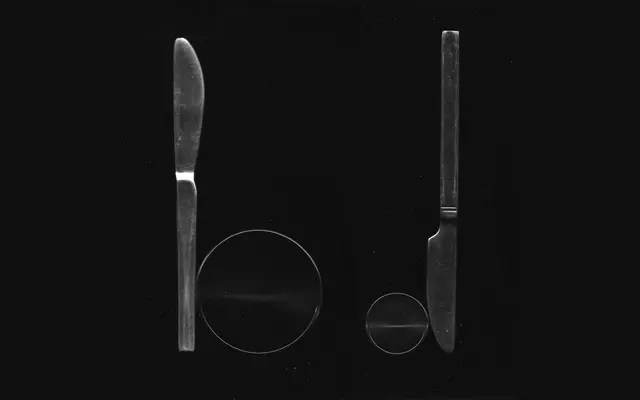
kitchenSet
Not Your Type · Hongshuang Fu · 2025
A single-style display typeface drawn from the outlines of kitchen utensils — forks, knives and glass rims — by Beijing-based designer Hongshuang Fu.
Created on a kitchen table in winter 2022 and released through Not Your Type in 2025, KitchenSet takes physical cutlery and glassware as its formal source material rather than any typographic tradition. The result is a loose, irregular letterform system that reads as genuinely handmade rather than simply distressed. Coverage is limited to basic Latin, numerals and essential punctuation, positioning it firmly as an accent or headline face for playful, craft-led projects.
KitchenSet is constructed from the shapes of physical kitchen utensils — forks, knives and glass rims — making it an experimental, object-based display typeface with no conventional typographic classification.